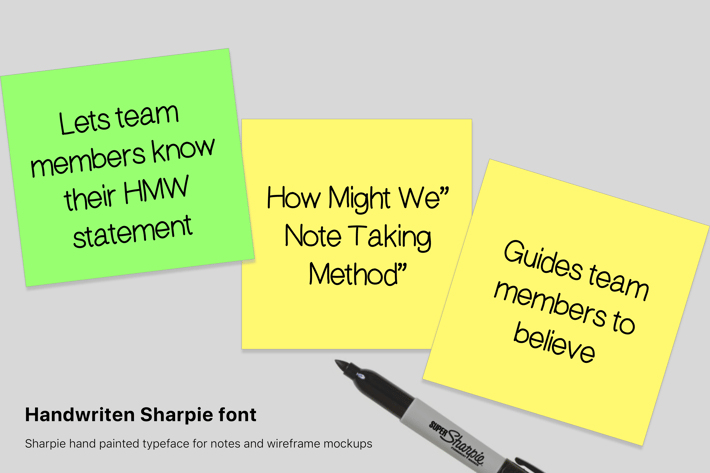
Handwritten font "Sharpie" for notes
Sharpie font is a Handwritten Typeface, is a perfect choice for, ux design, mockups, doodles, comments and more. The pack includes OTF, TTF and Web Fonts (all EOT, TTF, WOFF included).